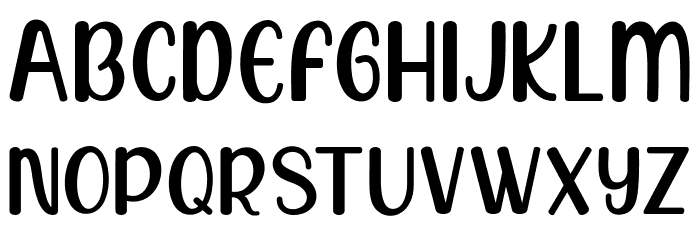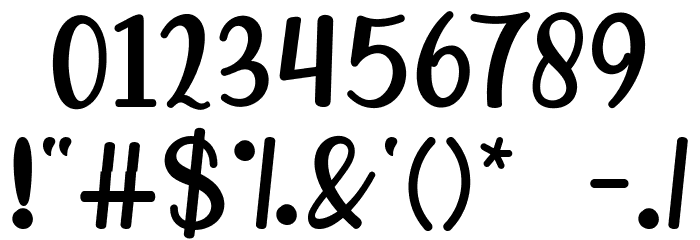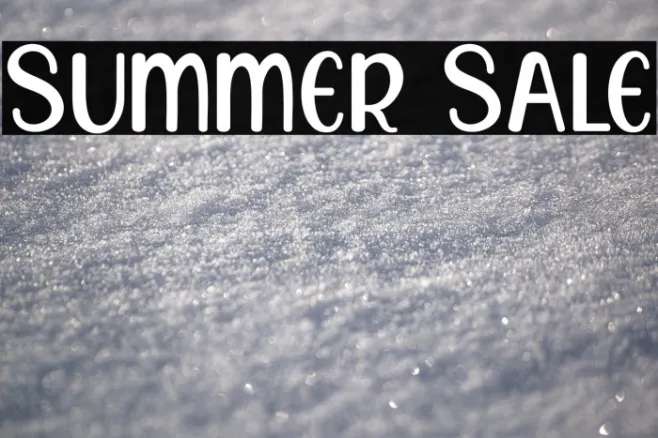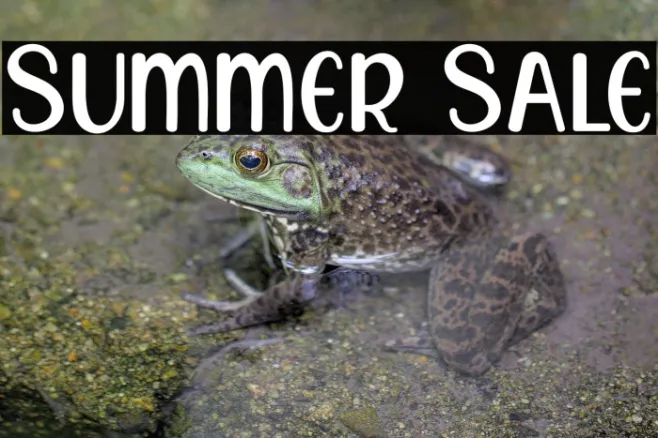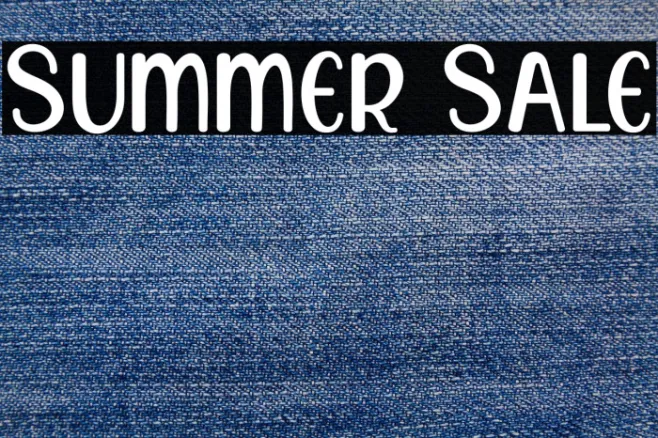
Summer Sale Font
This playful and bold font features rounded edges and a friendly, approachable style. The characters are slightly condensed, giving it a compact appearance while maintaining readability. The strokes are consistent in width, providing a uniform look across all characters. This font includes both uppercase and lowercase letters, numbers, and a variety of special characters, making it versatile for different design needs. Its whimsical nature is perfect for projects that require a touch of fun and creativity.
A playful, bold font with rounded edges and a friendly style.
- Proposed Projects: Ideal for children's books, playful branding, event posters, and creative social media graphics.
- Overall Style: Playful